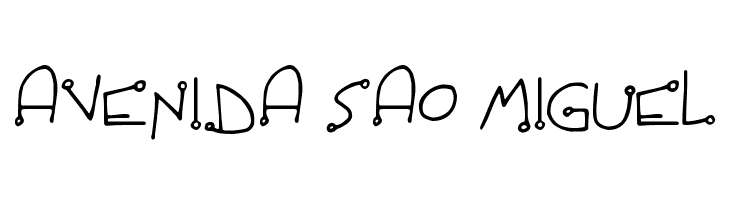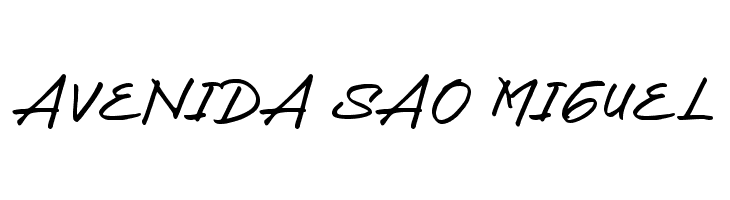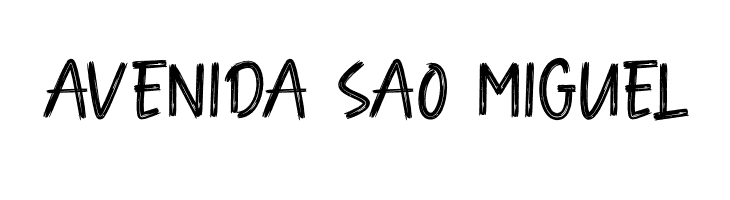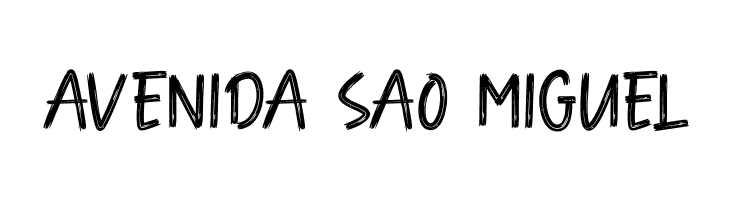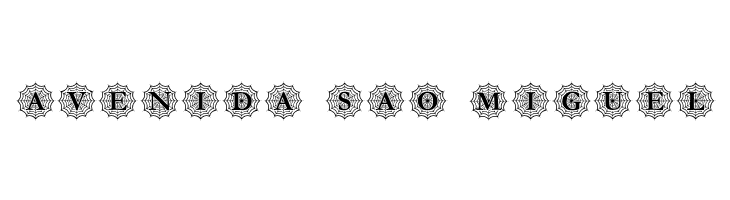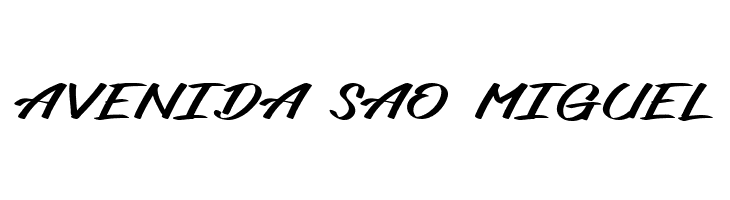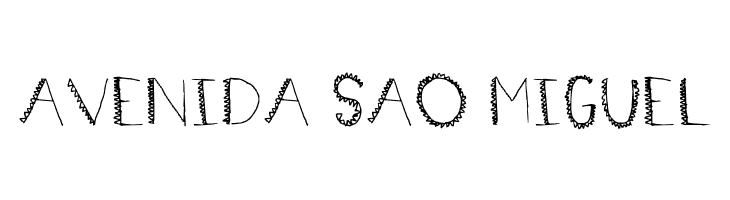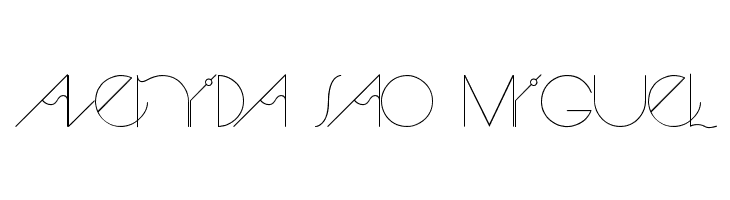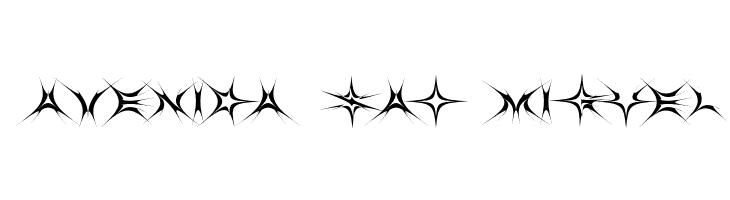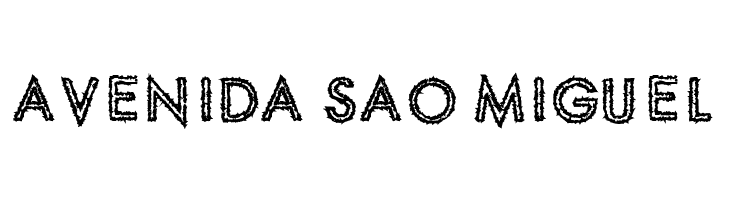
A decorative font with characters encased in spider web designs, ideal for themed projects.
A futuristic, angular font with sharp lines and geometric shapes.
A bold and expressive brush-style font with dynamic strokes.
A bold, brush-style font with dynamic, hand-drawn strokes.
A jagged, decorative font with a spider web-like appearance, perfect for horror themes.
A whimsical, hand-drawn font with a modern gothic flair.
A bold, decorative font with characters encased in spider web designs, perfect for Halloween themes.
A bold, decorative font with a pixel art-inspired pattern and thick outlines.
A bold, decorative font with a star-patterned fill, ideal for striking displays.
A bold, decorative font filled with intricate spider web patterns.
Halloween-themed dingbat font with whimsical illustrations.
A playful, whimsical font with irregular strokes and dot embellishments.
A bold, angular font with a gothic, medieval flair.
A fluid, handwritten font with a cursive style and connected letters.
A playful, handwritten-style font with consistent stroke width.
A dynamic and fluid script font with a modern, artistic flair.
A bold, decorative font with characters in circular saw-like shapes.
A decorative, gear-like font with intricate, jagged edges.
A decorative, ornamental font with abstract, artistic characters.
A bold, spiky font with jagged edges and a rugged, artistic style.
A textured, distressed font with a crumbly, dynamic appearance.
A bold, spiky font with a crumbly texture and swollen appearance.
A decorative, spiky font with an aggressive and edgy style.
A bold, textured font with an edgy, distressed style perfect for impactful designs.
A bold, spiky font with a dramatic and edgy appearance.
A bold, spiked font with elongated, pointed characters for dramatic impact.